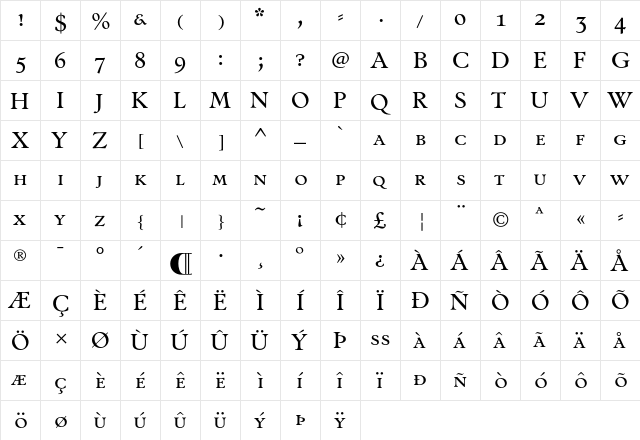
Nordik Regular
Design Context for Nordik Typeface
Nordik is a composed and adaptable typeface that performs quietly and consistently across a wide range of design contexts.